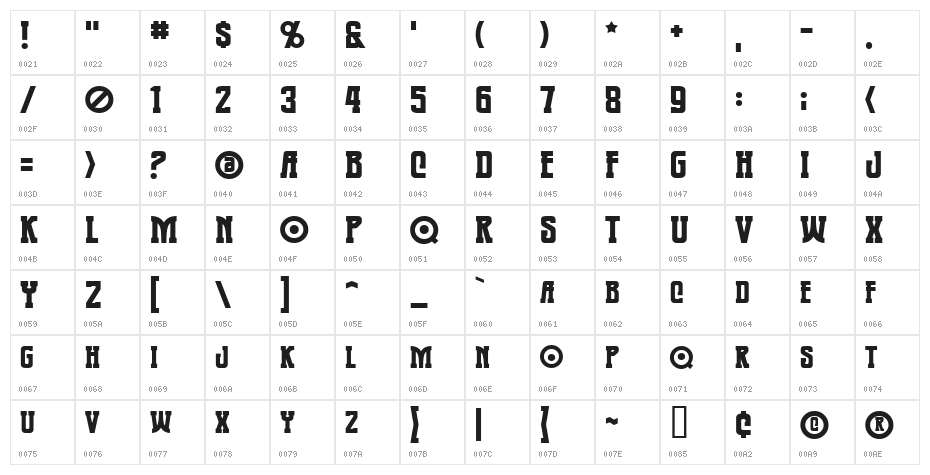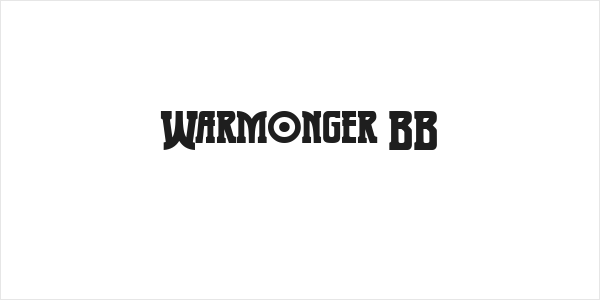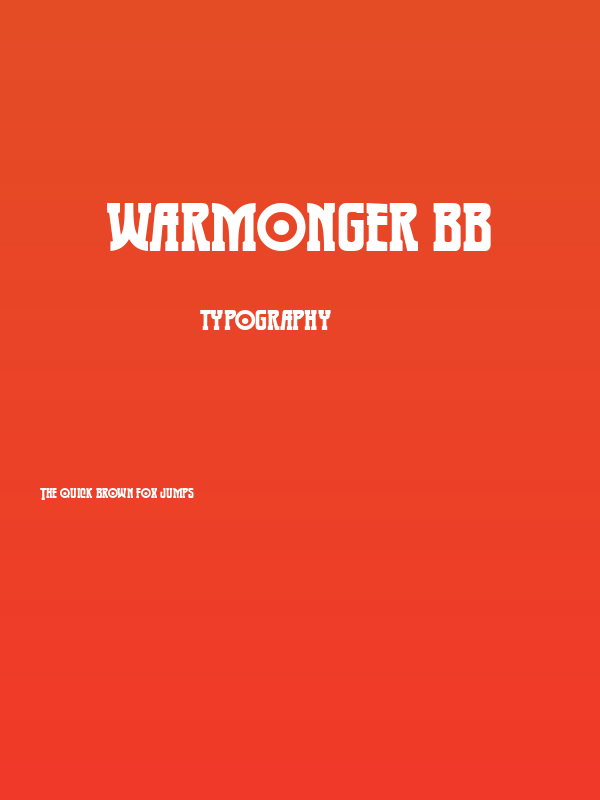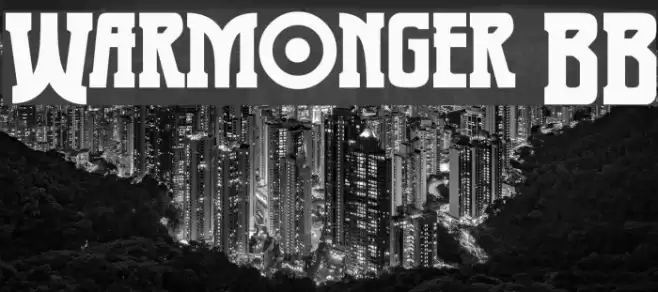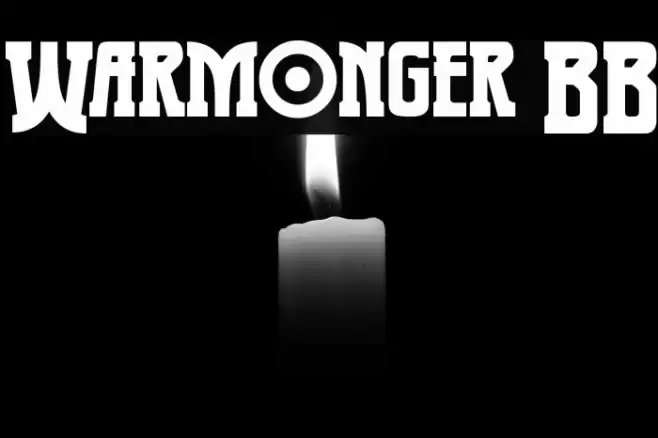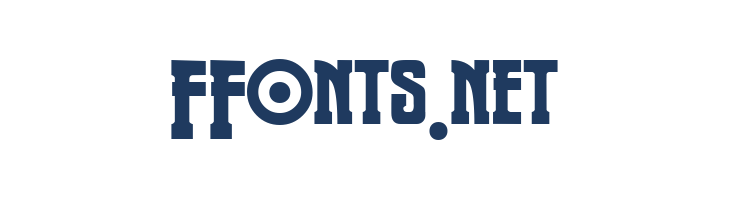
Warmonger BB Font
This bold and striking font features a unique, heavy design with strong geometric elements. The uppercase letters are particularly distinctive, with some characters incorporating circular motifs that add a sense of dynamism and movement. The font's thick strokes and angular shapes give it a commanding presence, making it ideal for attention-grabbing headlines or impactful logos. The numbers and special characters maintain the same bold style, ensuring consistency across all text elements. Its robust and assertive appearance makes it suitable for projects that require a strong visual impact.
| Proposed Projects | Ideal for posters, logos, branding, and any design requiring a bold, impactful typeface. |